18 Best Clean Modern Fonts for Logos in 2026
Modern minimalist fonts for logos prove that simplicity often creates the strongest brand identity. With balanced proportions, crisp lines, and thoughtful spacing, these typefaces deliver a polished, premium look without relying on decorative details. Their timeless aesthetic makes them a natural fit for technology, fashion, beauty, architecture, and modern lifestyle brands.
In this collection, you’ll find 18 carefully selected modern minimalist fonts for logos, organized by style and purpose. Whether you’re creating a sleek wordmark, a bold visual identity, or a compact logo for limited spaces, this roundup helps you quickly discover the right typeface for your project.
How to use modern minimalist fonts for logos
Minimalist logos succeed because every detail matters. These practical tips will help you create a refined, professional result:
- Give your typography room to breathe. Slightly increasing letter spacing often makes minimalist logos feel more elegant and balanced.
- Stay consistent with font weights. Using a single well-chosen weight creates a cleaner, more memorable identity than mixing several styles.
- Test on light and dark backgrounds. A great logo should remain sharp and readable whether it’s displayed in black, white, or full color.
- Focus on clarity over decoration. Simple typography works best when the brand name is easy to read at every size, from business cards to website headers.
Clean minimalist sans for logo wordmarks
These modern minimalist fonts for logos are ideal for elegant wordmarks with a clean, contemporary appearance. Their balanced geometry and subtle character make them versatile choices for brands that value simplicity, professionalism, and long-lasting visual appeal.
Bright Font
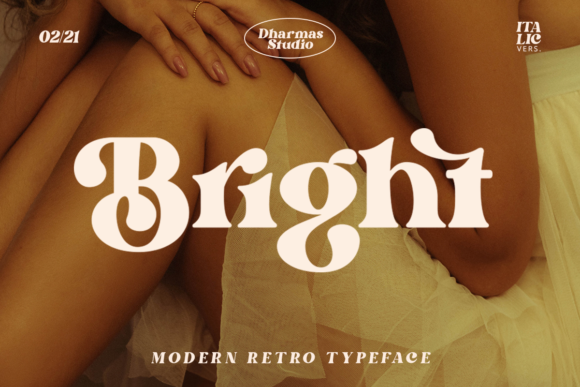
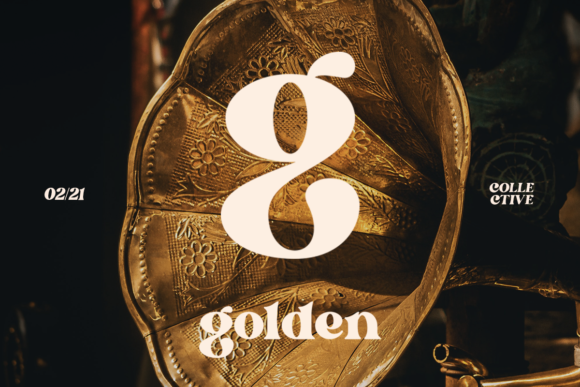
Bright is a stylish serif font that blends modern sophistication with the nostalgic charm of 60s and 70s typography. I enjoy using it for branding, editorial layouts, posters, packaging, logos, and social media graphics because its bold, clean letterforms create a striking visual presence. The combination of retro-inspired character and contemporary elegance makes every design feel fresh, playful, and effortlessly timeless.
Brown Carolina Duo Font
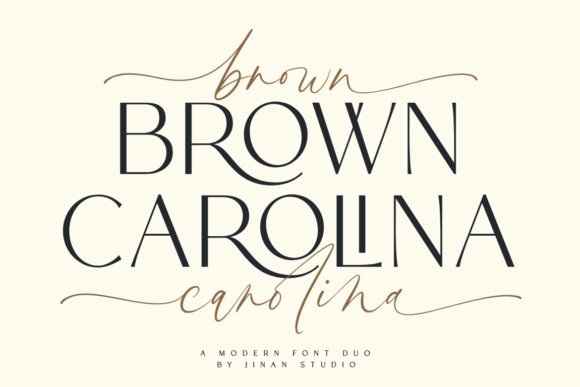
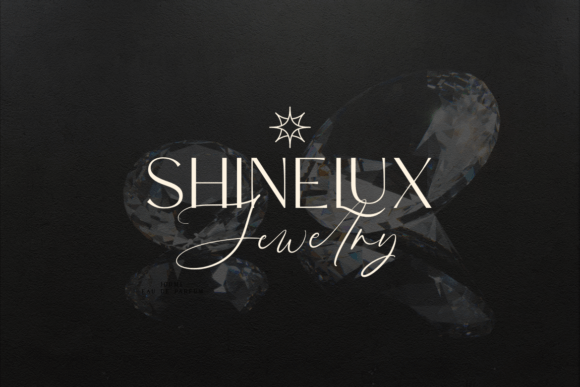
Brown Carolina is a sophisticated font duo that combines a contemporary sans serif with an elegant handwritten script, offering the perfect balance of modern simplicity and timeless charm. I love using it for wedding invitations, branding, business cards, magazine layouts, packaging, logos, and social media graphics because its complementary styles create a polished and versatile visual identity. The script font features beautiful alternates and ligatures for effortless customization, while the clean sans serif provides a refined, professional foundation, making every design feel stylish, elegant, and memorable.
Ethereal Font
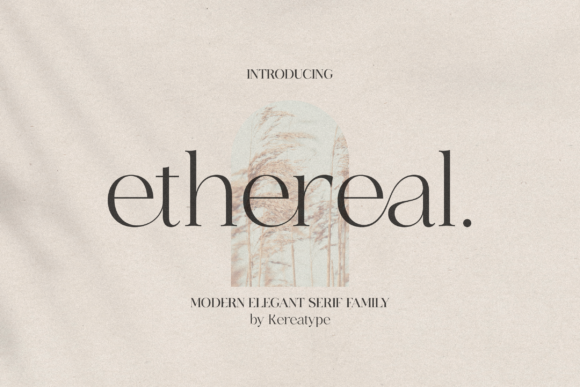
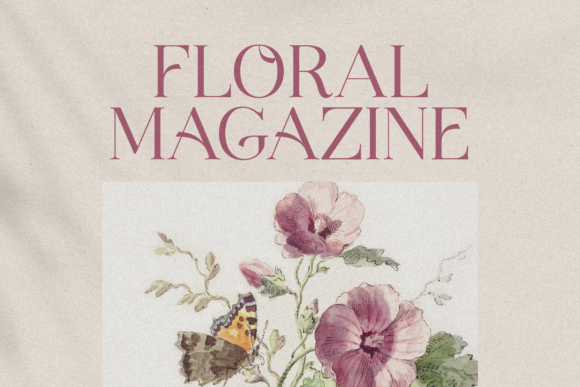
Ethereal is a sophisticated serif font family that combines modern elegance with timeless luxury. Featuring multiple weights and stylish details, I love using it for branding, logos, editorial layouts, packaging, fashion projects, and high-end marketing materials because it creates a refined and distinctive visual identity. Its graceful letterforms and versatile design make every project feel polished, fashionable, and effortlessly luxurious while maintaining excellent readability.
Little Love Font
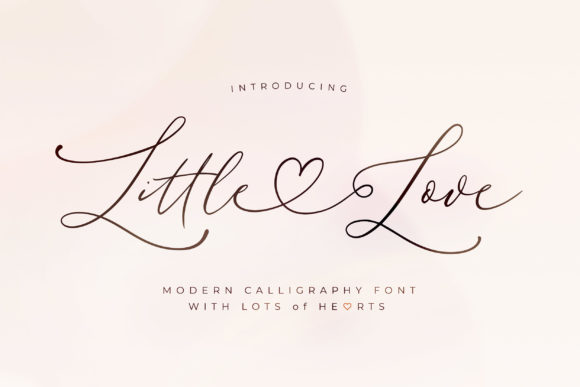
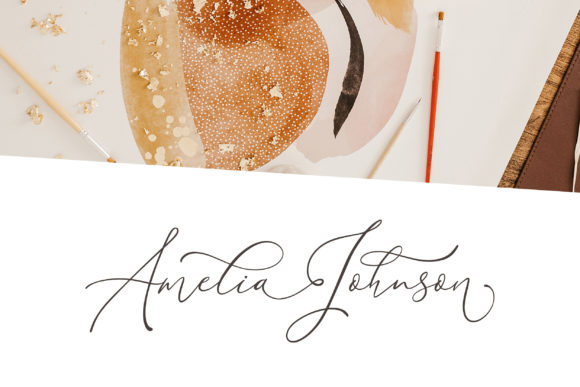
Little Love is a refined script font that combines graceful elegance with a clean and modern handwritten style. I enjoy using it for wedding invitations, branding, logos, greeting cards, packaging, and social media graphics because its thin, flowing strokes create a soft and sophisticated look. The beautifully crafted glyphs and elegant swashes provide endless creative possibilities, making every design feel romantic, polished, and effortlessly stylish.
Brisca Font
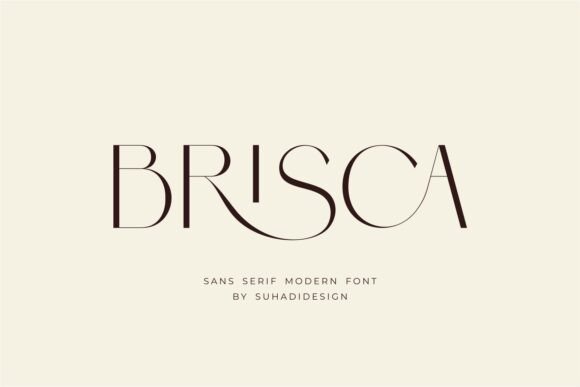
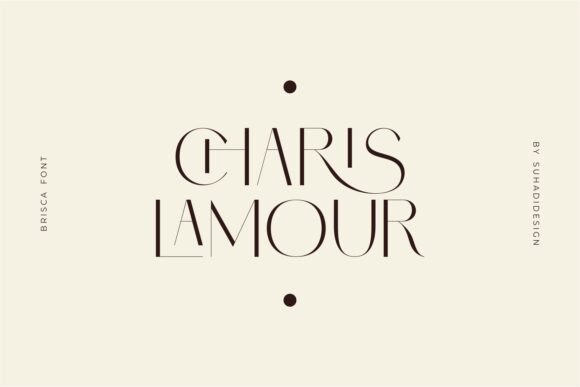
Brisca is a modern sans serif font that combines clean lines with elegant ligatures for a refined and contemporary look. I love using it for branding, logos, wordmarks, beauty and cosmetic packaging, magazines, business cards, editorial layouts, and social media graphics because its sleek letterforms create a sophisticated visual identity. The stylish design and carefully crafted ligatures add personality while maintaining excellent readability, making Brisca a versatile choice for modern, premium, and professional design projects.
Healing Font
Healing Elegant Serif is a refined serif typeface inspired by minimalist luxury design, offering a perfect balance of sophistication and modern elegance. I enjoy using it for branding, logos, editorial layouts, invitations, brochures, packaging, beauty products, and marketing materials because its clean letterforms create a timeless and premium aesthetic. The graceful serif details and minimalist style make every design feel polished, luxurious, and effortlessly professional.